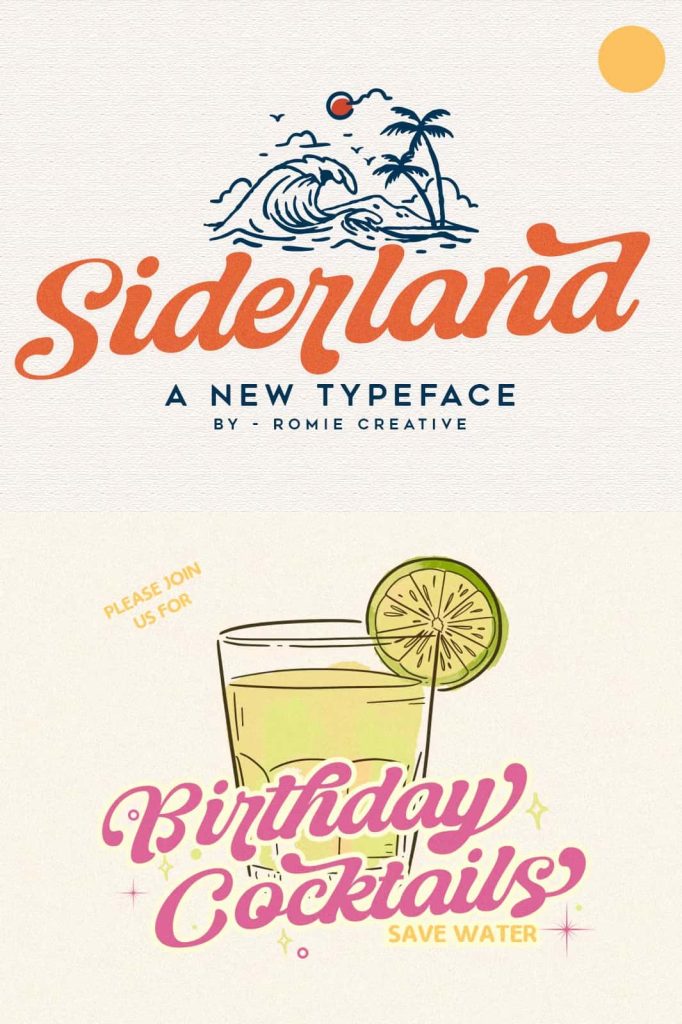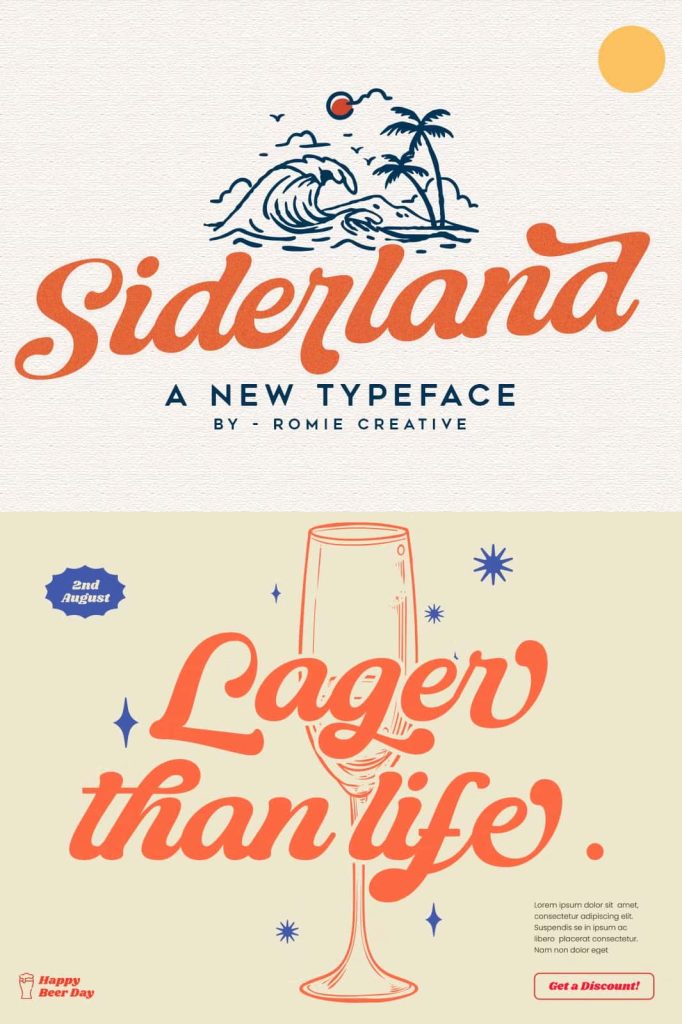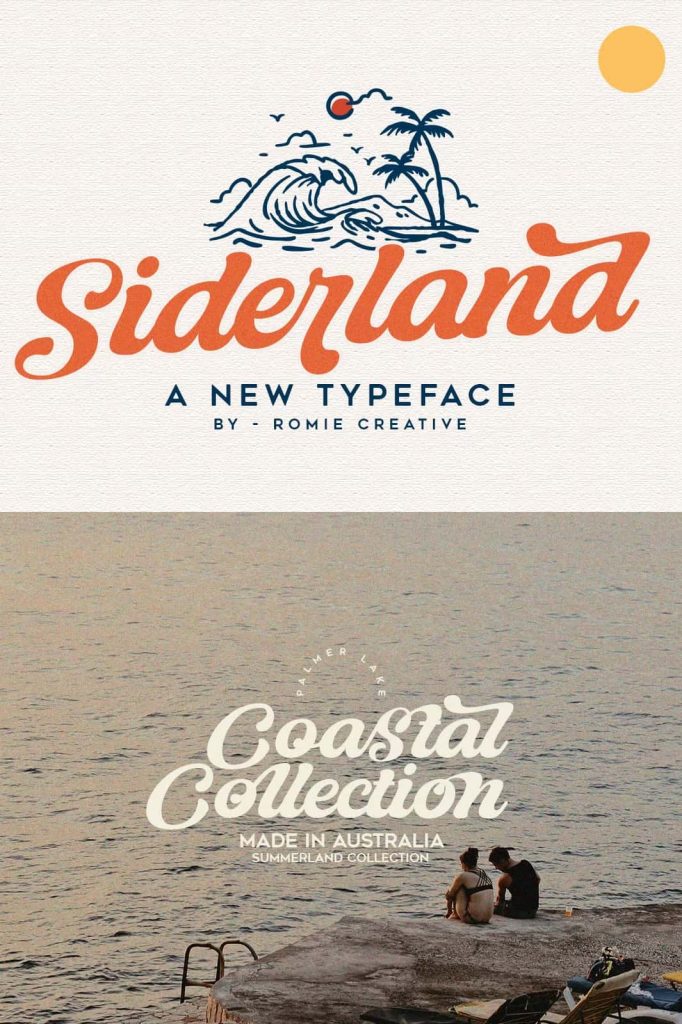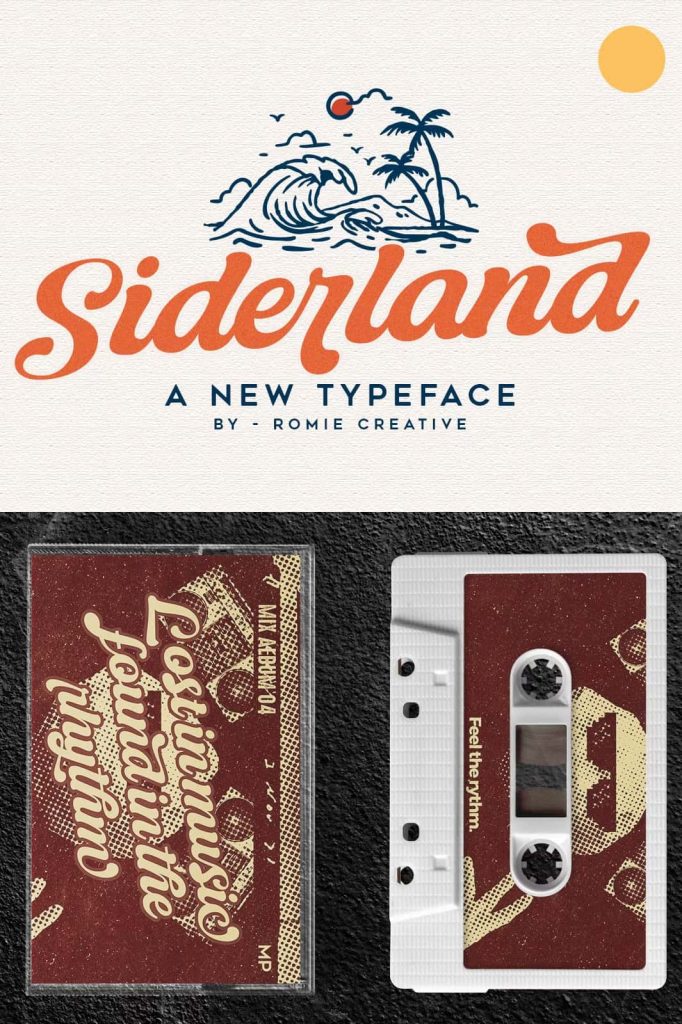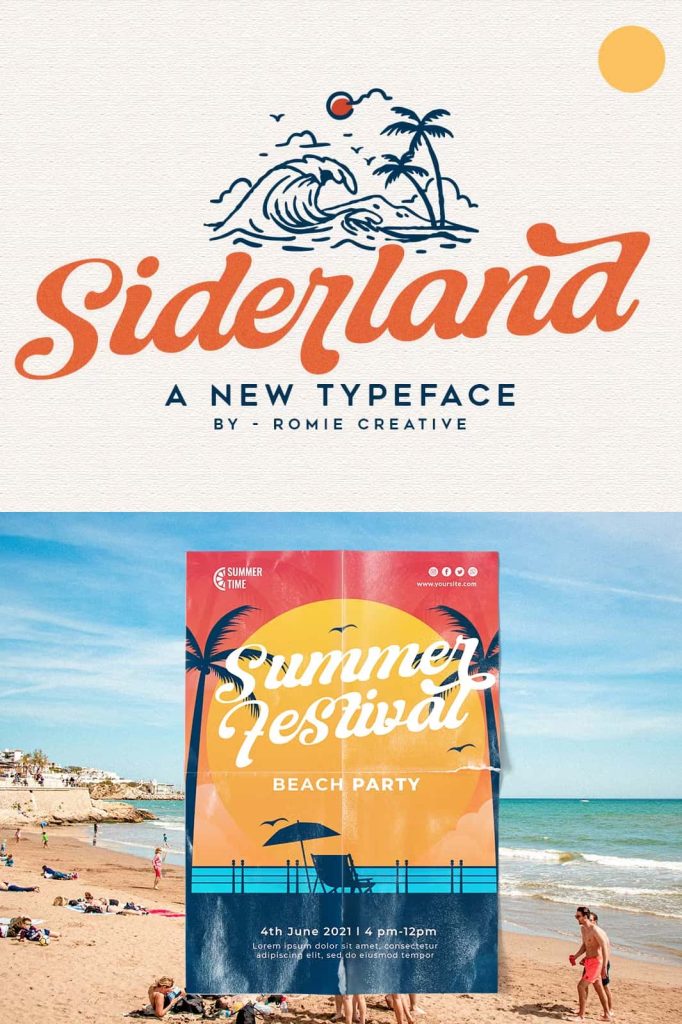
Siderland TypefaceleastedJuly 30, 2025Fonts Introducing the new Siderland Typeface which is a carefully crafted script typeface balanced with personality. Download